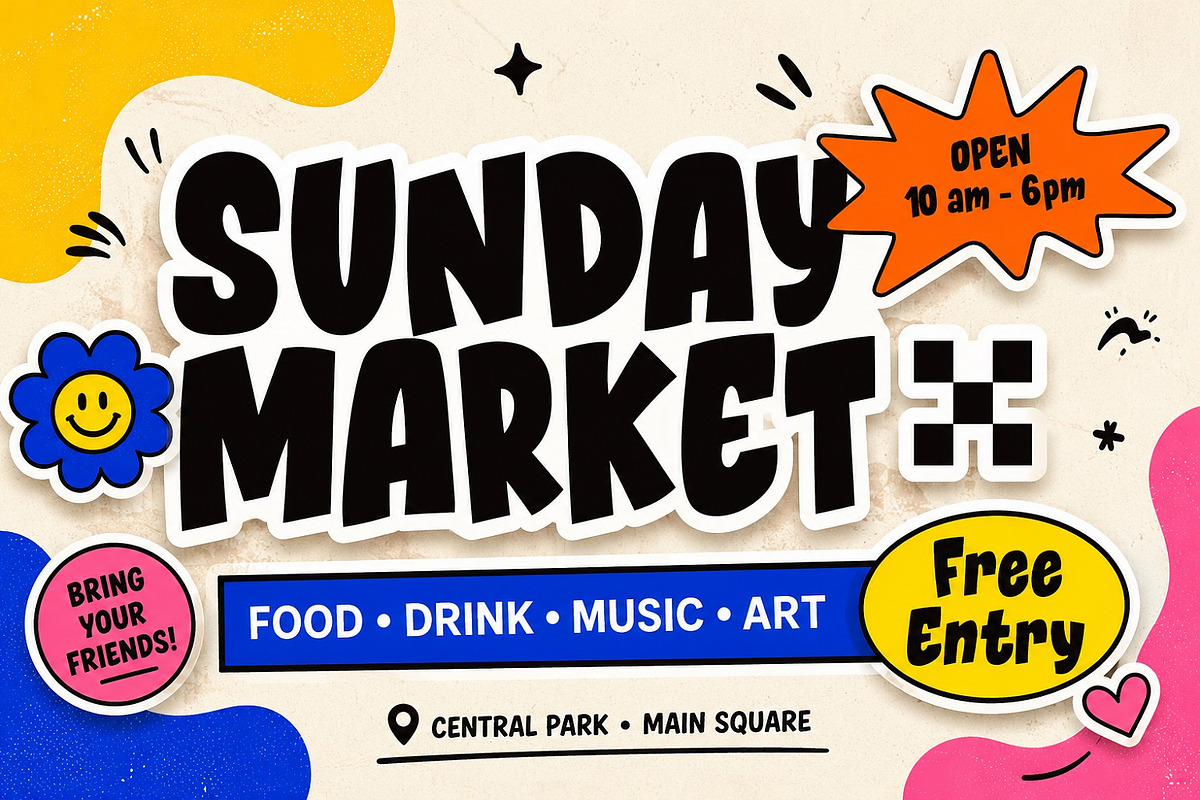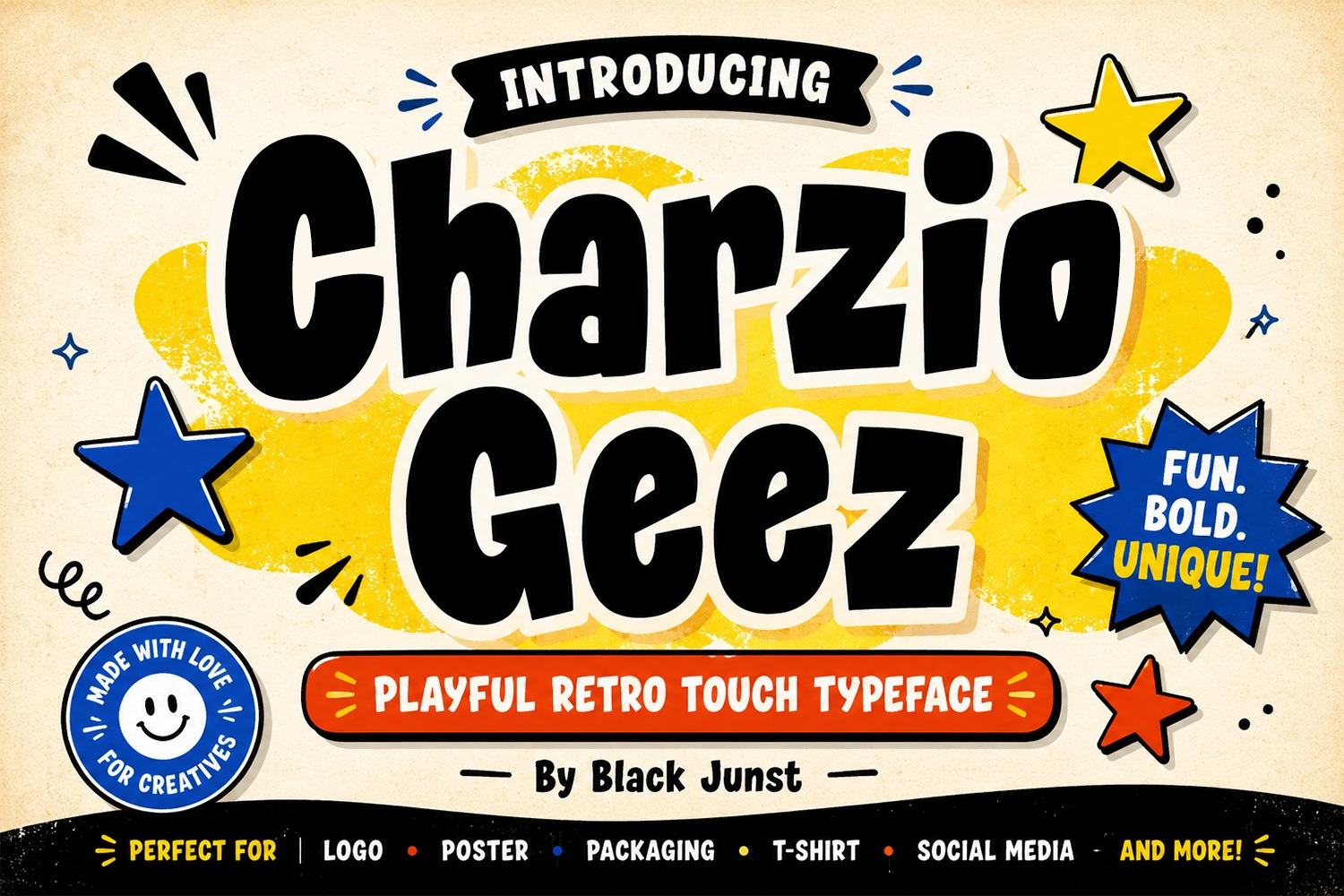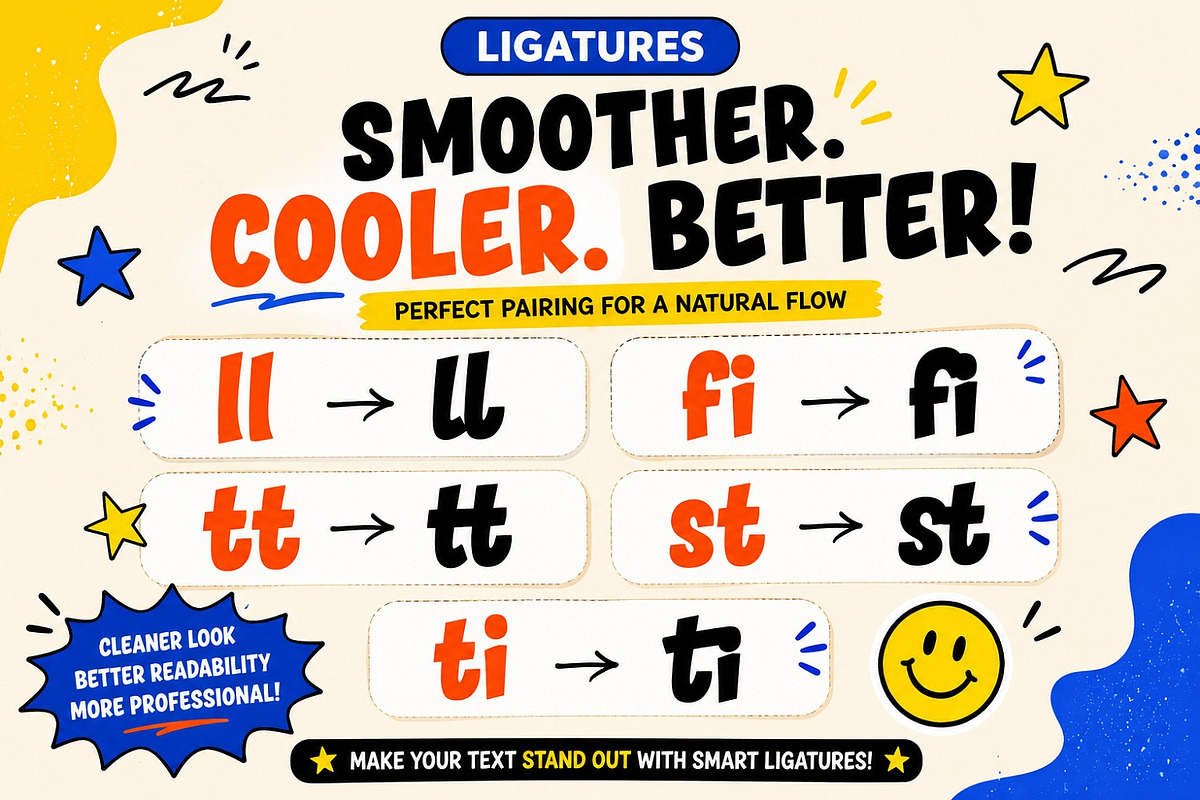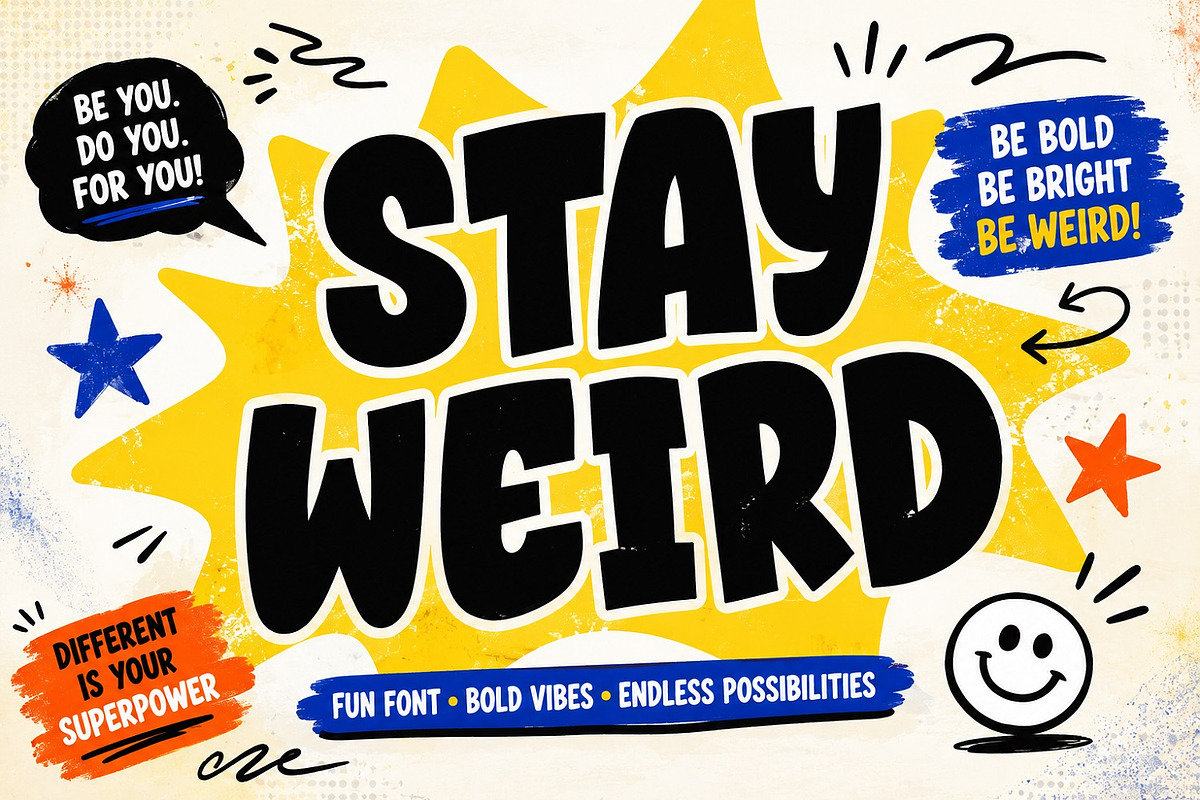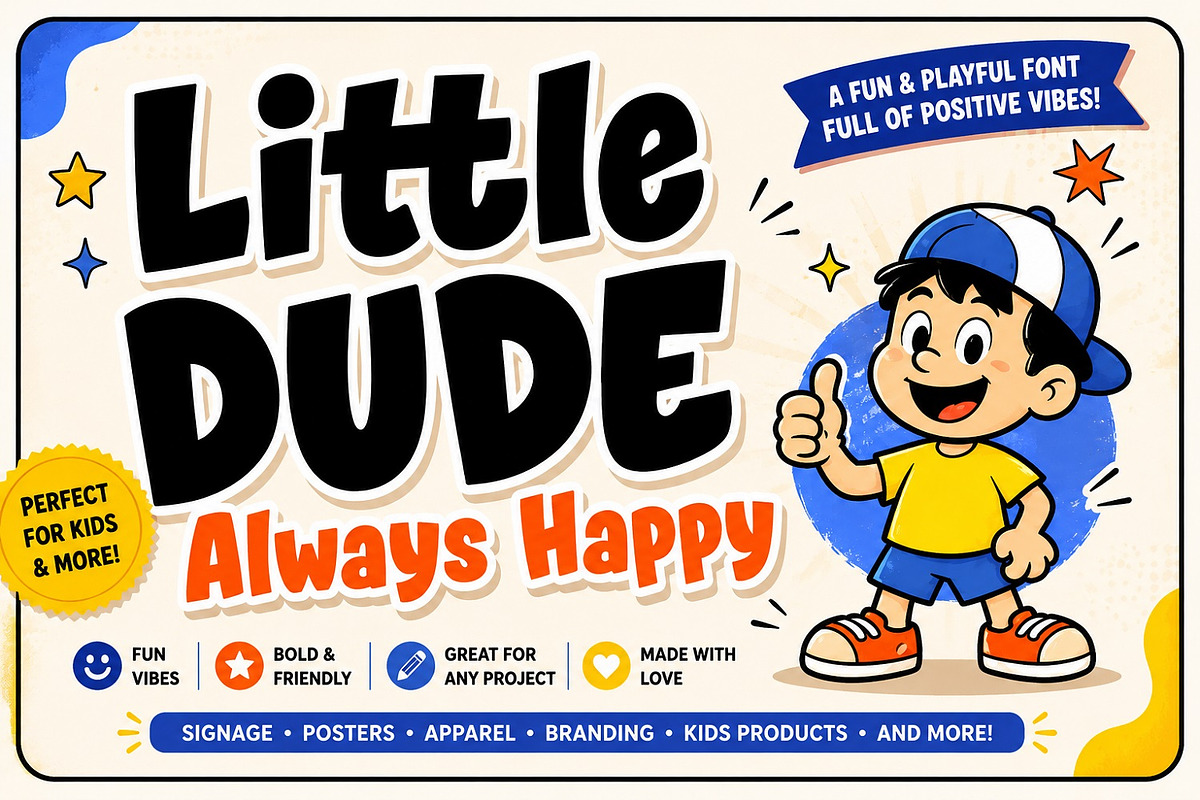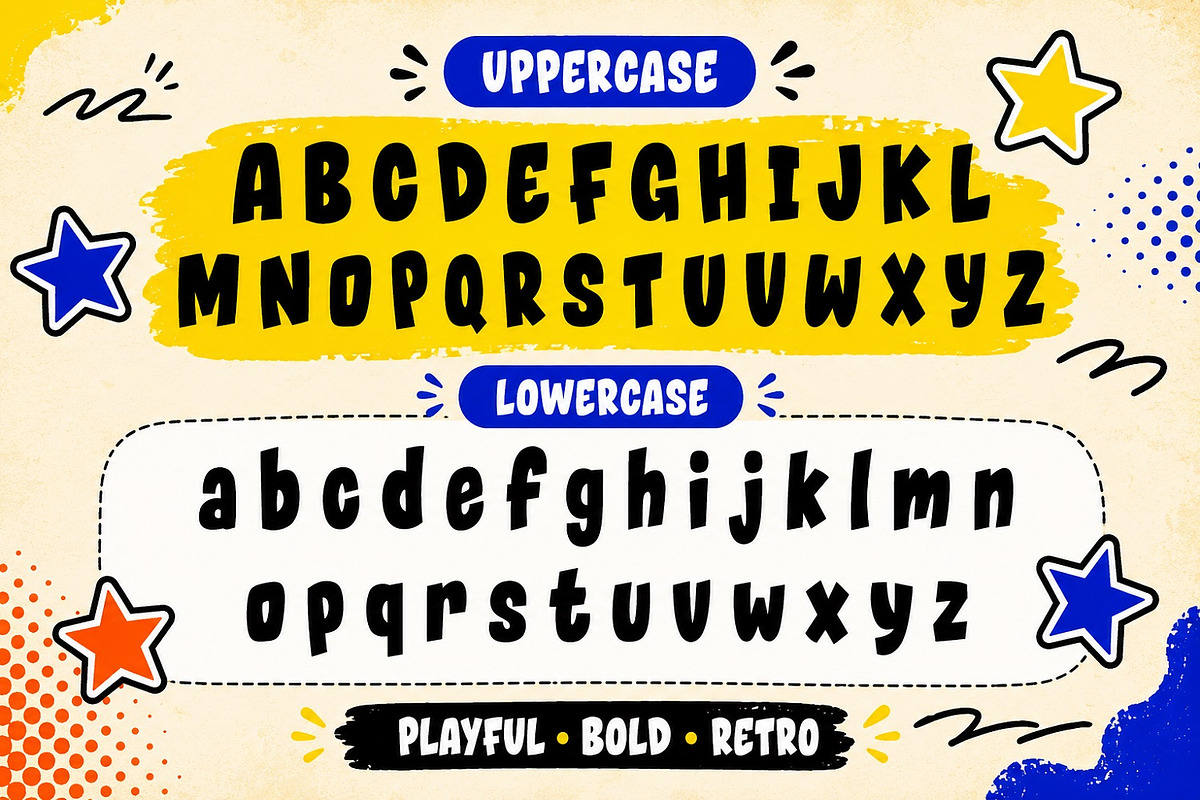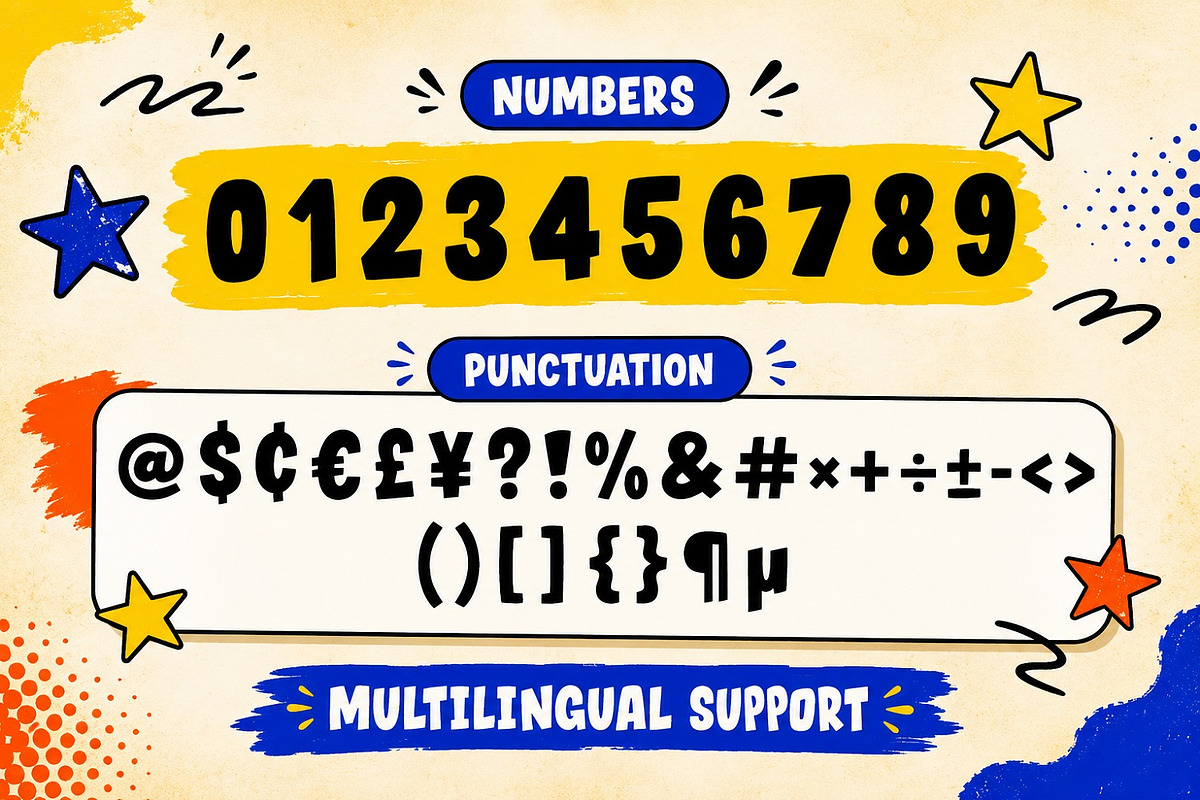
Charzio Geez - Playful Font
Charzio Geez is a bold, playful display font that brings a cheerful retro vibe with a fresh modern twist. Designed with chunky letterforms, soft curves, and eye-catching personality, this typeface is perfect for designers who want to create memorable branding and fun visual identities.
Whether you're working on logos, product packaging, posters, children's projects, social media graphics, YouTube thumbnails, café branding, stickers, t-shirt designs, or merchandise, Charzio Geez instantly adds warmth, energy, and character to every design.
Its handcrafted appearance makes it ideal for projects that need to feel friendly, creative, nostalgic, and full of life. Inspired by vintage typography while refined for today's design trends, Charzio Geez delivers excellent readability with a unique handcrafted feel that helps your work stand out from the crowd.
Perfect For :
Branding Identity
Poster Design
Kids Branding
Children's Books
Café & Restaurant Branding
Food Packaging
T-Shirt Design
Sticker Design
Toy Packaging
YouTube Thumbnail
Quote Design
Greeting Cards
Advertising
Headlines
Magazine Covers
Product Labels
Bring bold personality and playful retro charm into your next creative project with Charzio Geez—a display font crafted to help brands, creators, and designers build eye-catching visuals that customers remember.